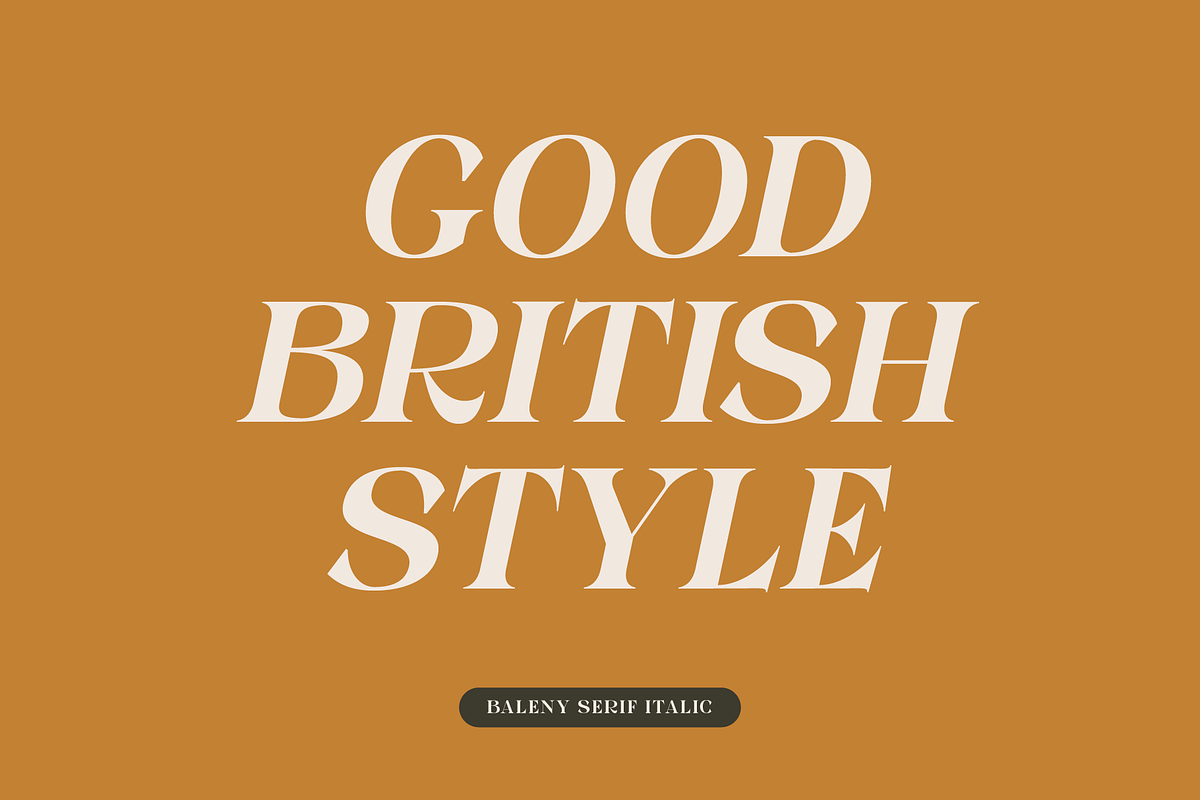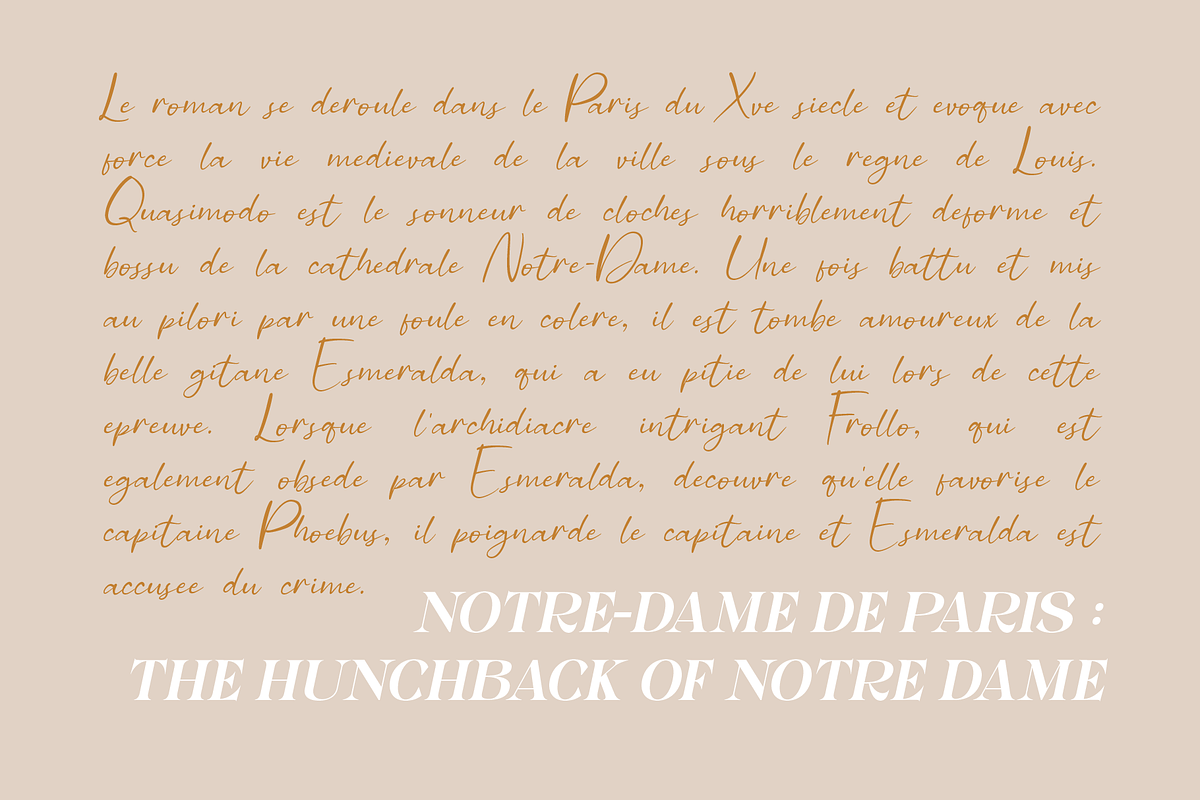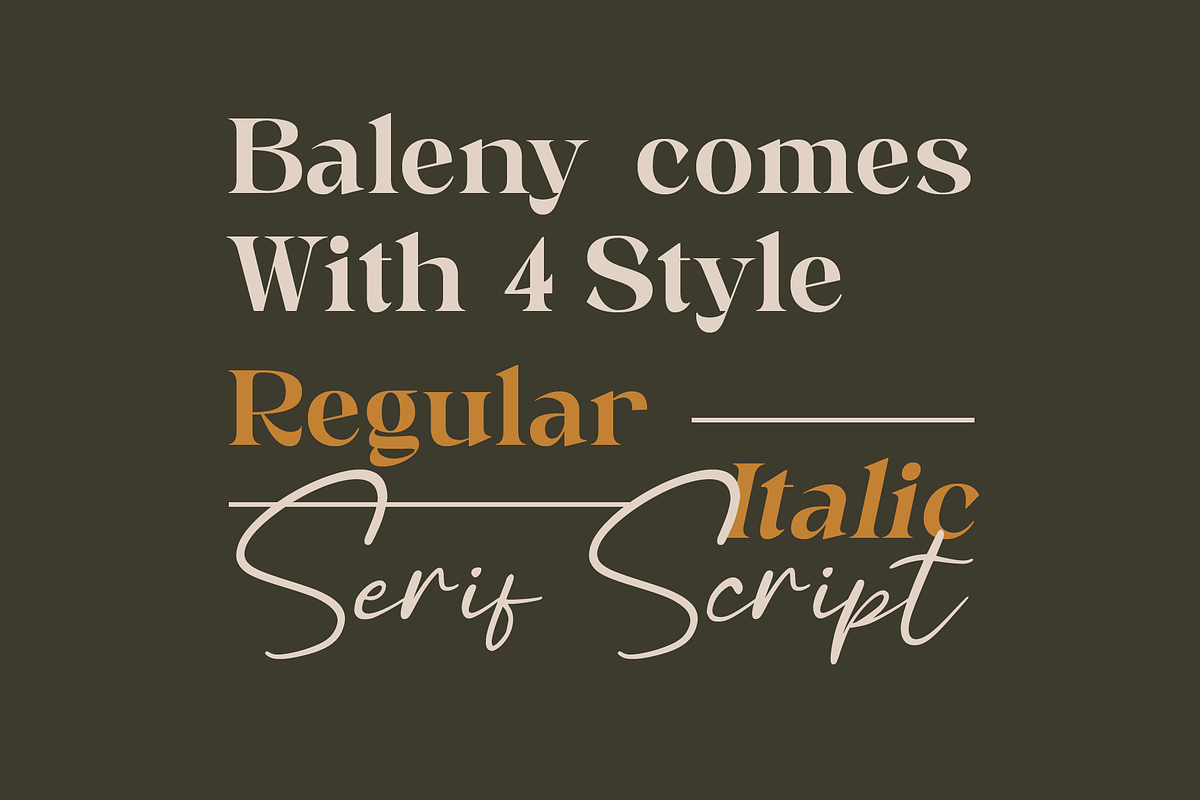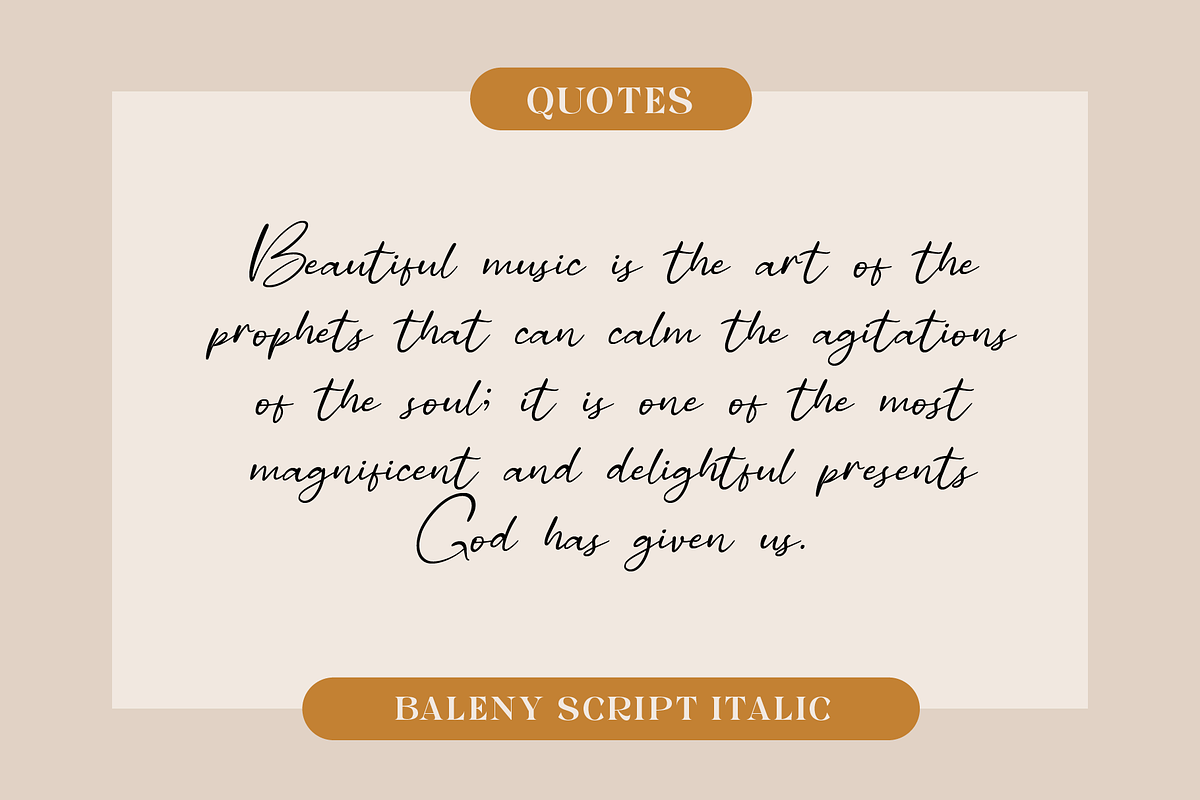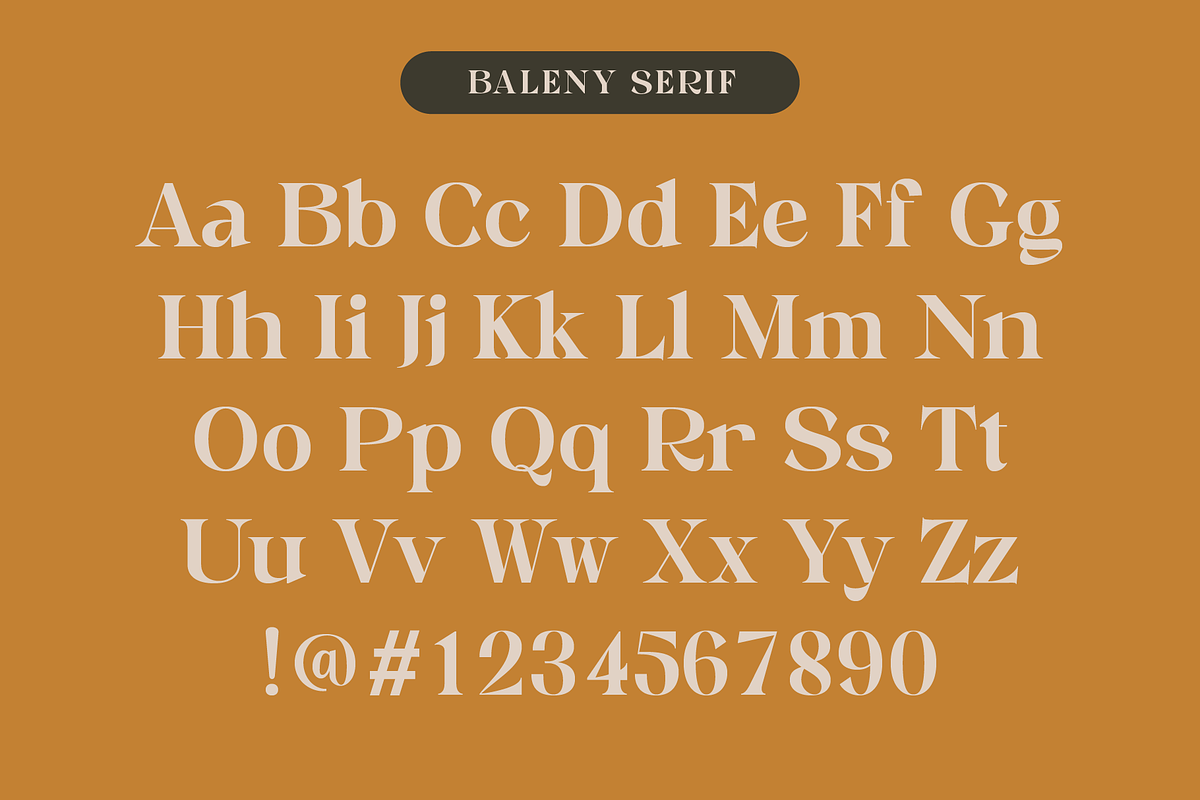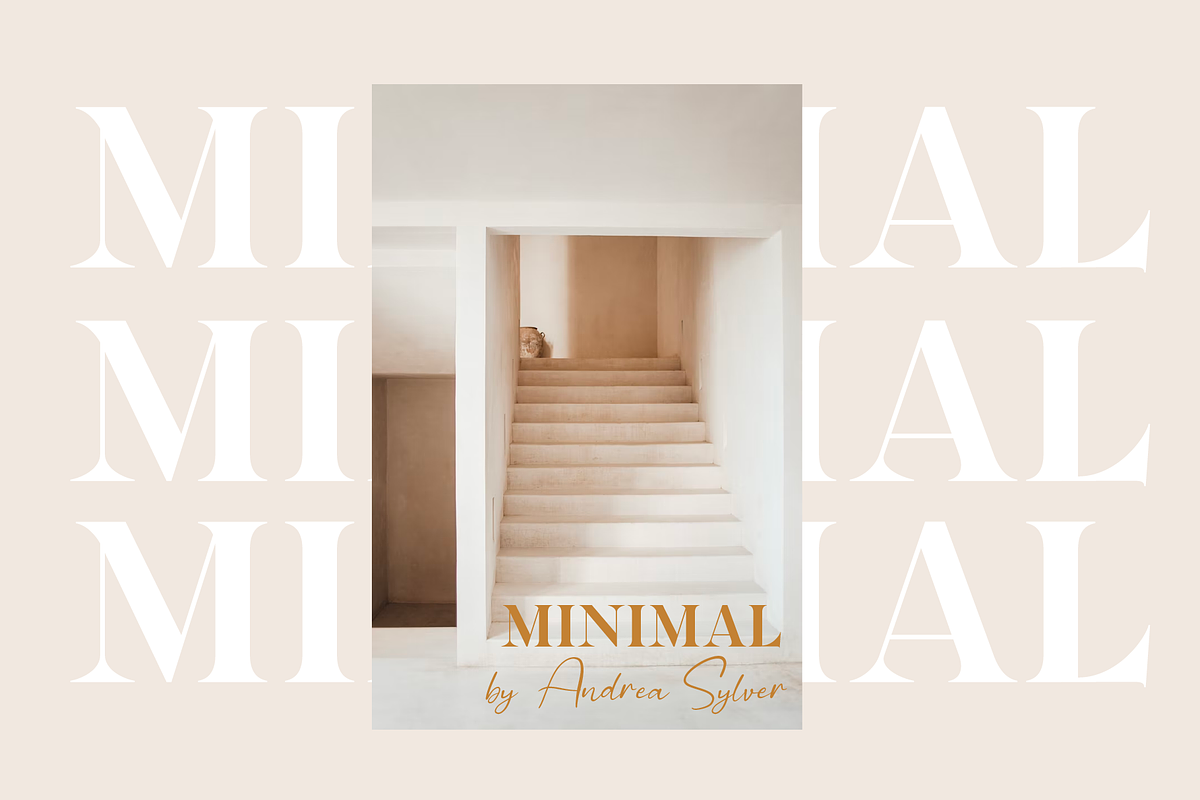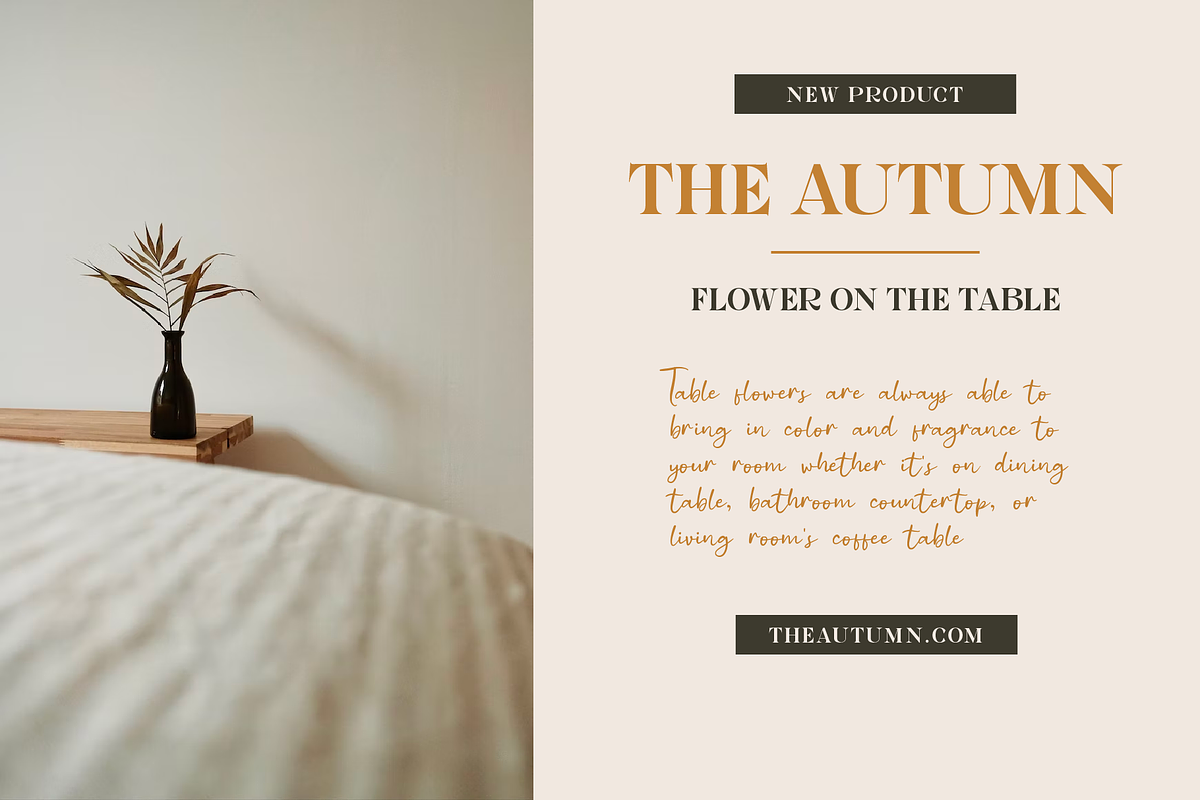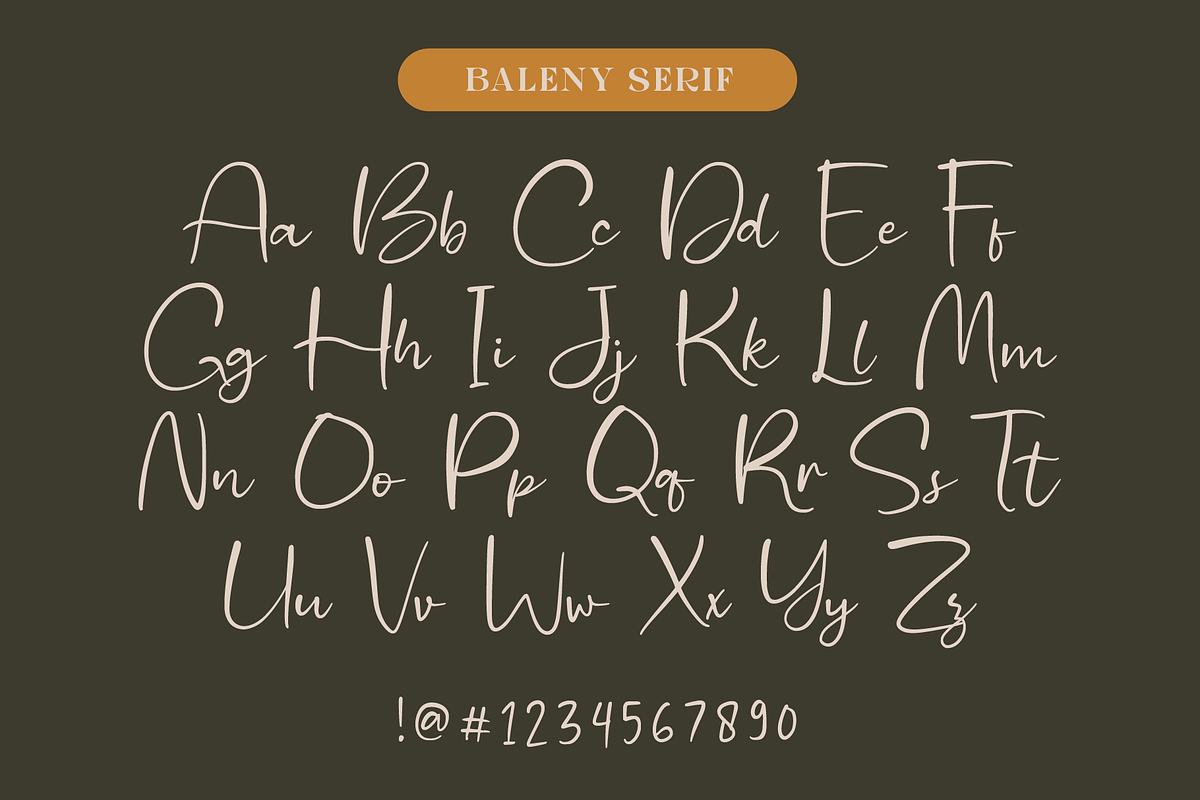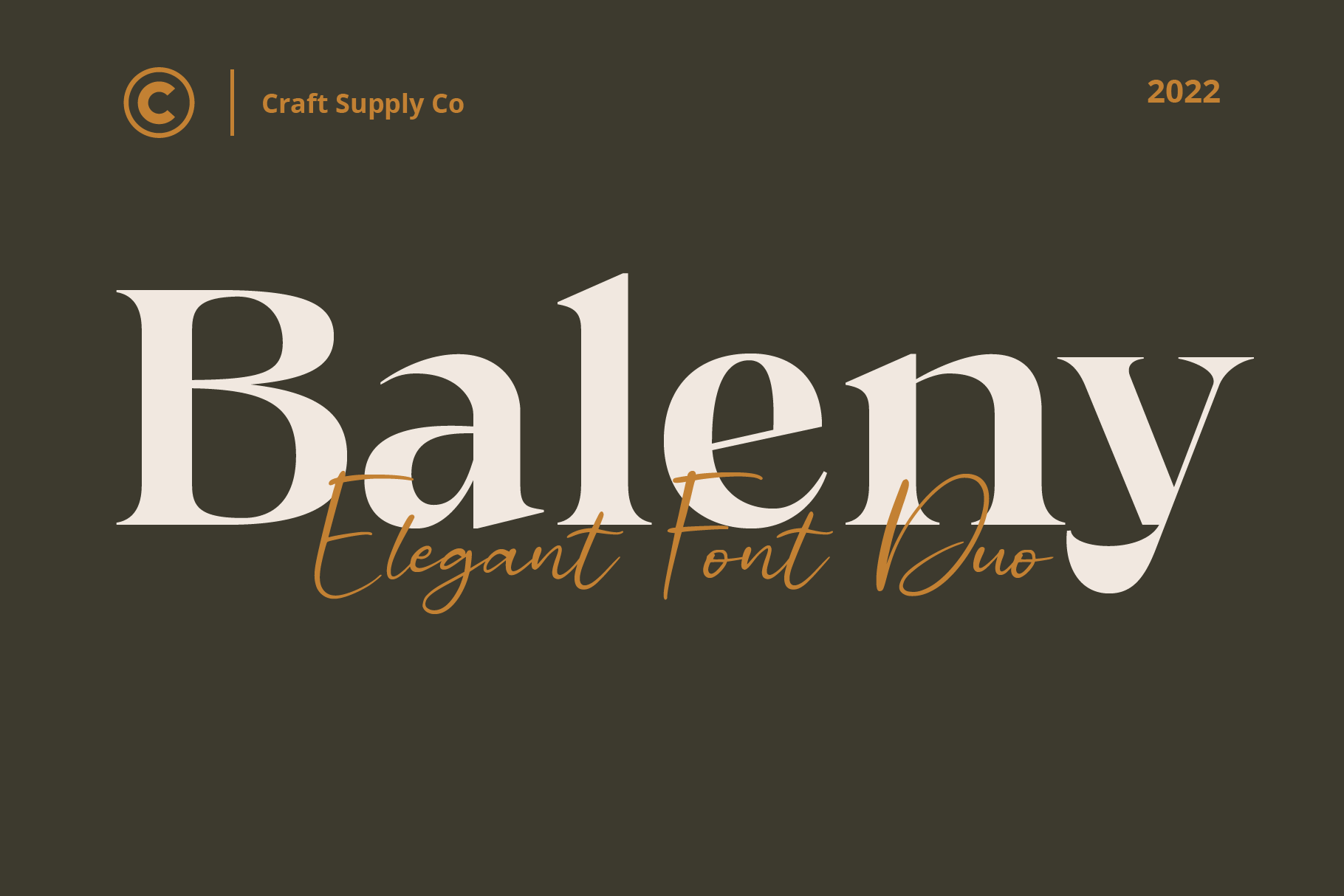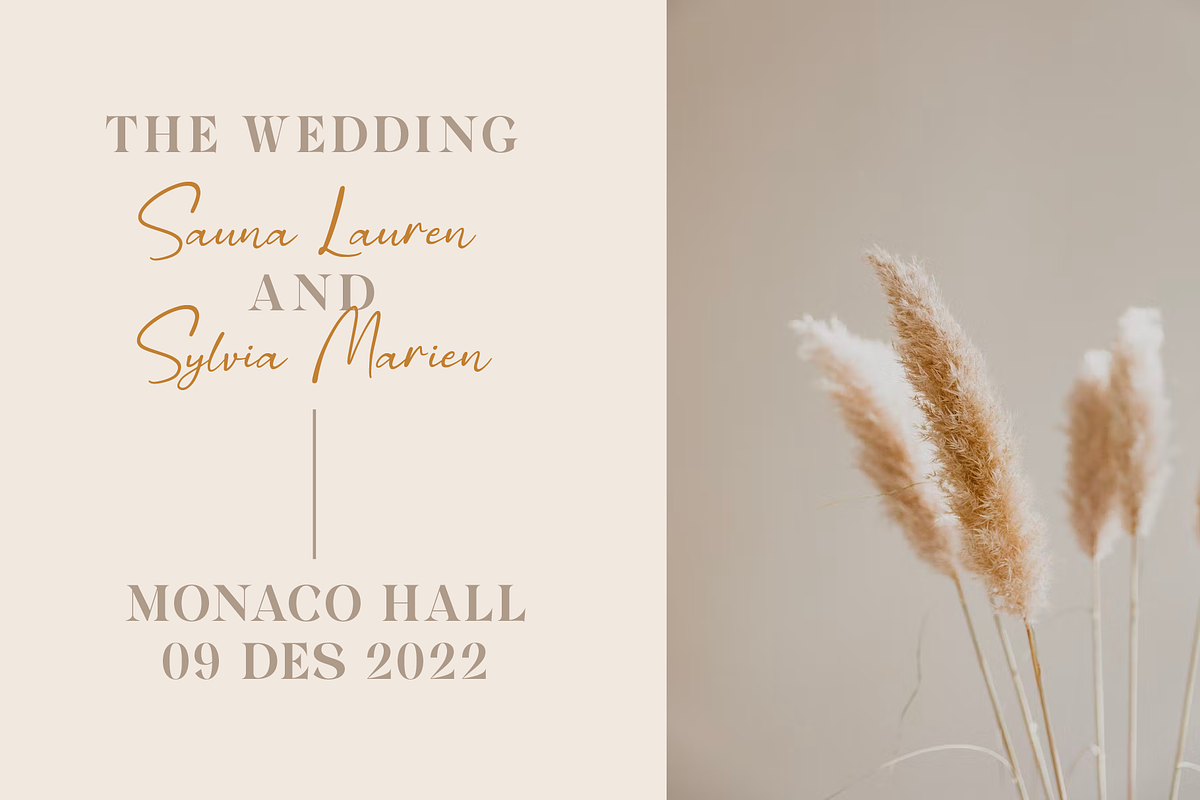
Baleny Elegant Font Duo
Introducing Baleny Elegant Font Duo
Baleny Elegant Font Duo is a combination of a serif font & beauty handwritten script font based on the expression of real handwriting. Baleny Elegant Font Duo will work perfectly for fashion, e-commerce brands, trend blogs, wedding boutiques or any business that wants to appear upscale and chic.
Baleny Elegant Font Duo also Suitable for Logo, greeting cards, quotes, posters, branding, name card, stationary, design title, blog header, art quote, typography, art, modern envelope lettering or book design, happening style like handdrawn design or watercolor design theme, craft design, any DIY project, book title, or any purpose to make your art/design project look pretty and trendy
- Baleny Serif Regular
- Baleny Serif Italic
- Regarn Script Regular
- Regarn Script Italic